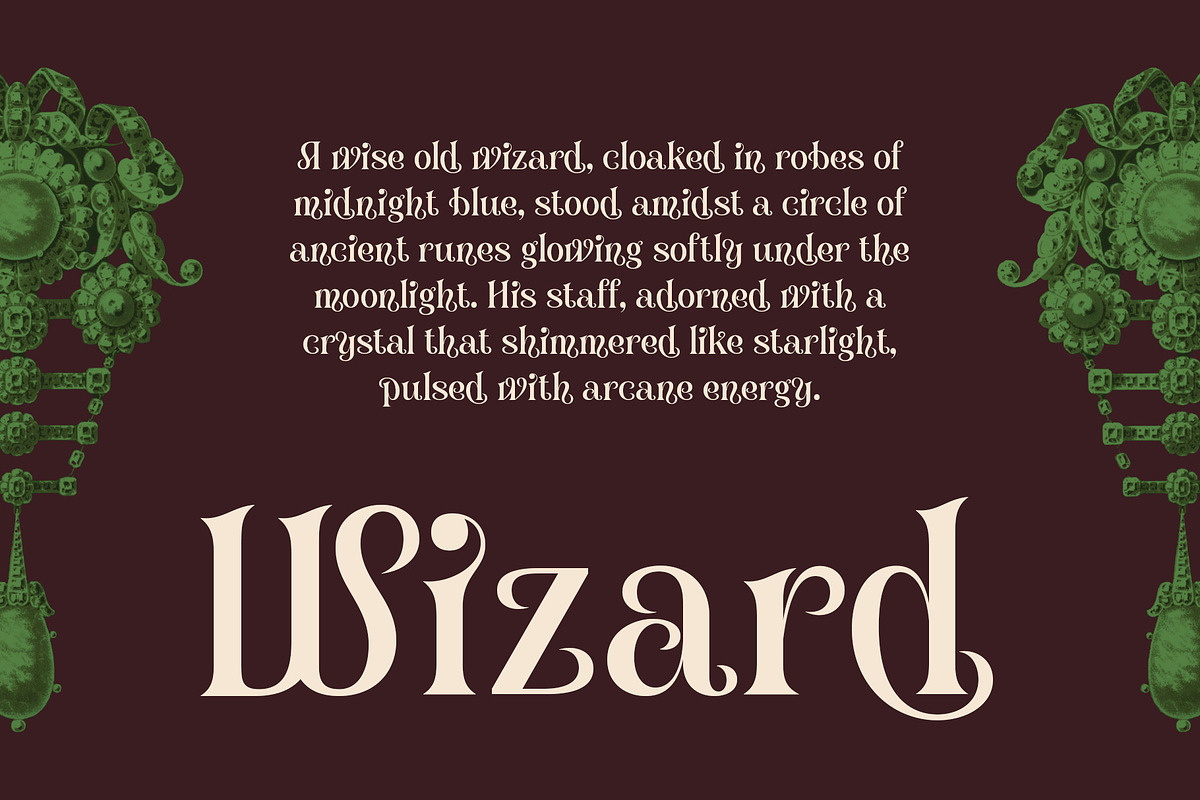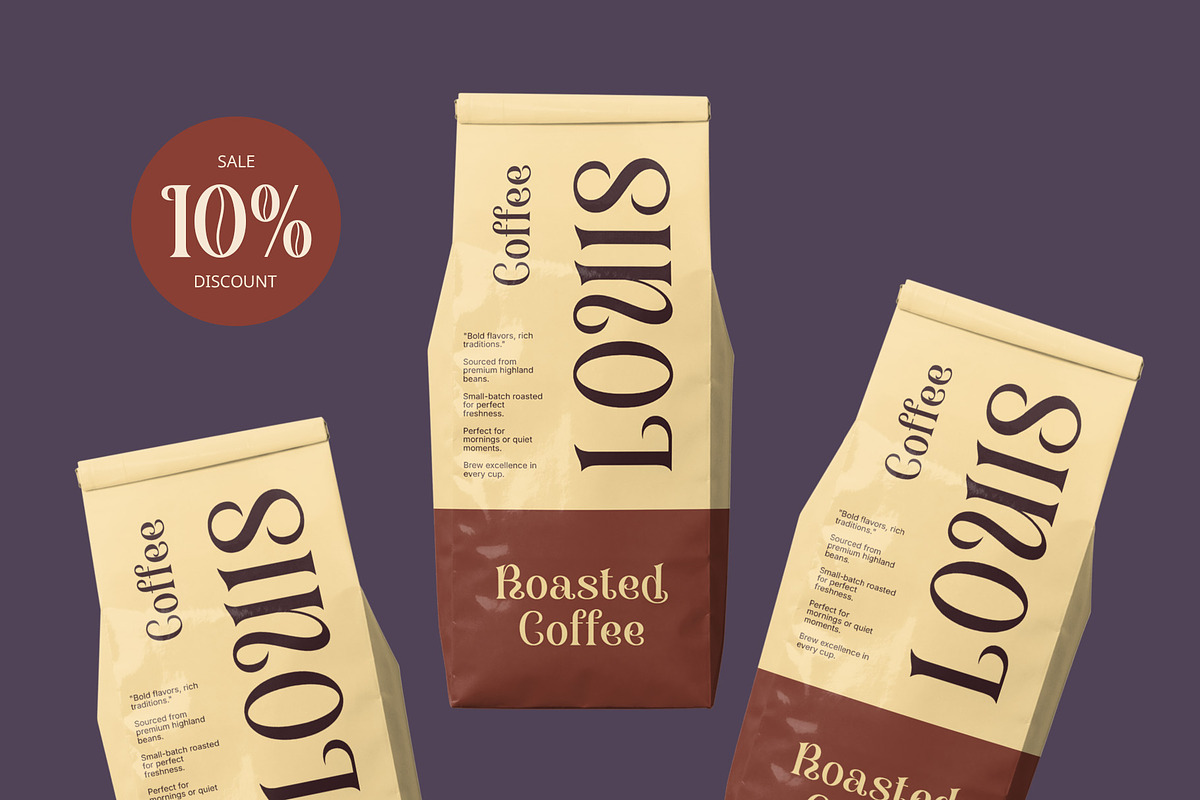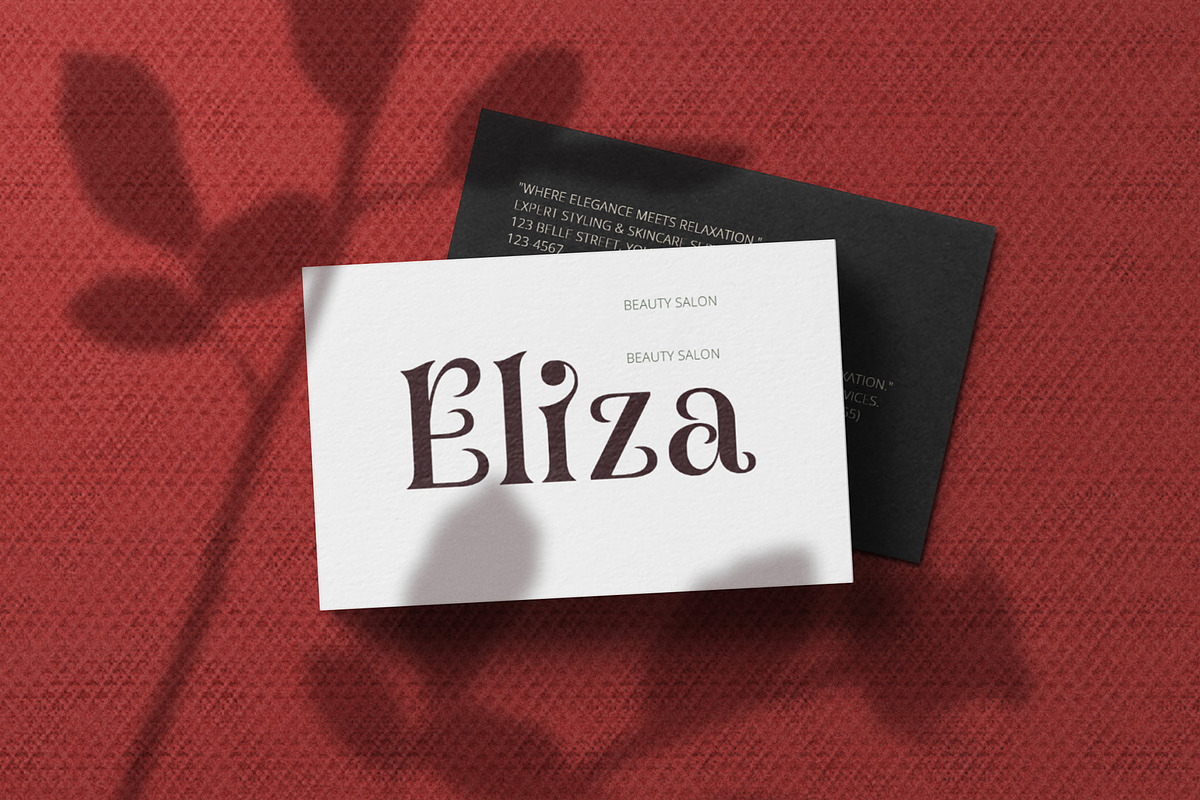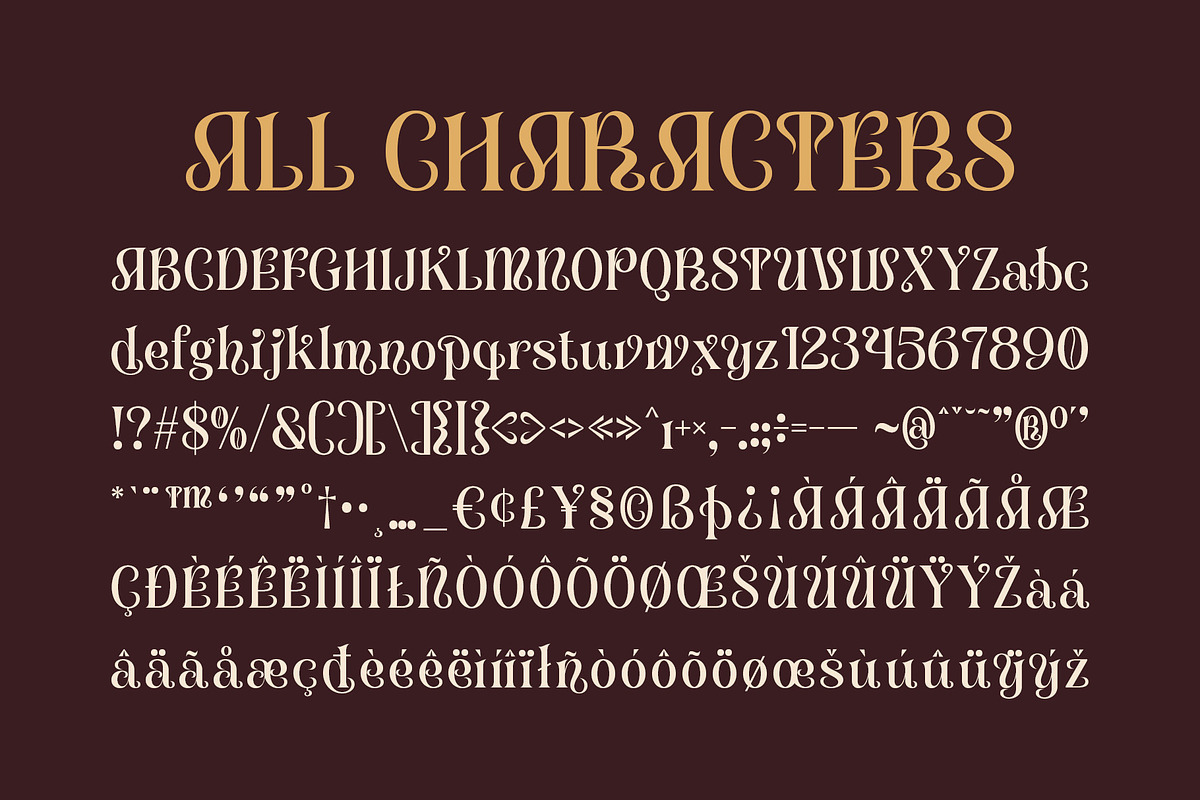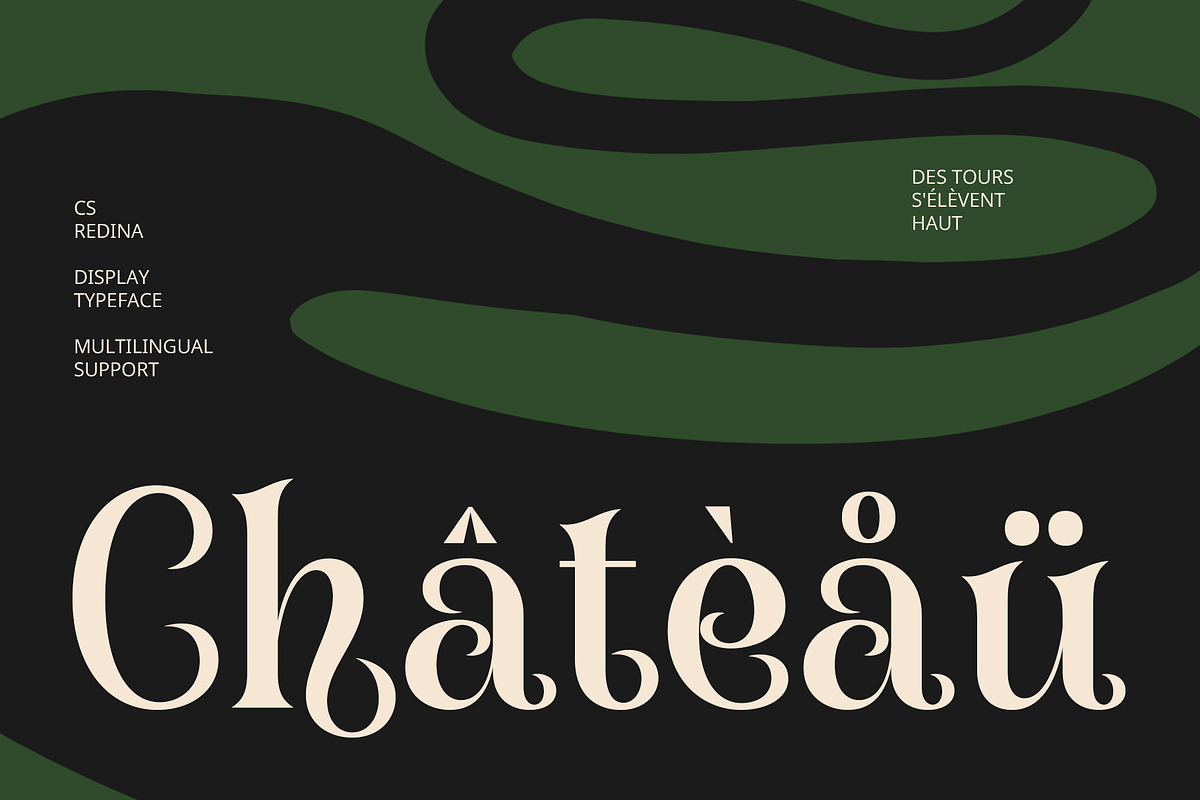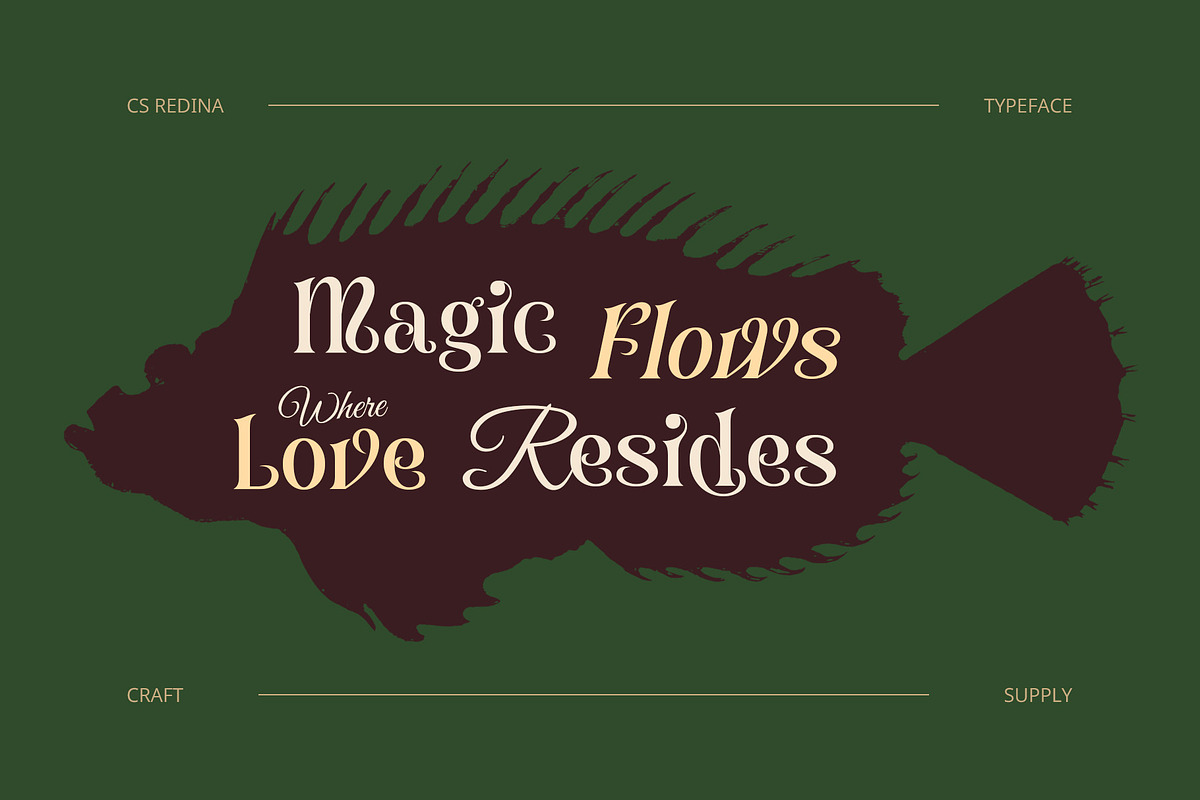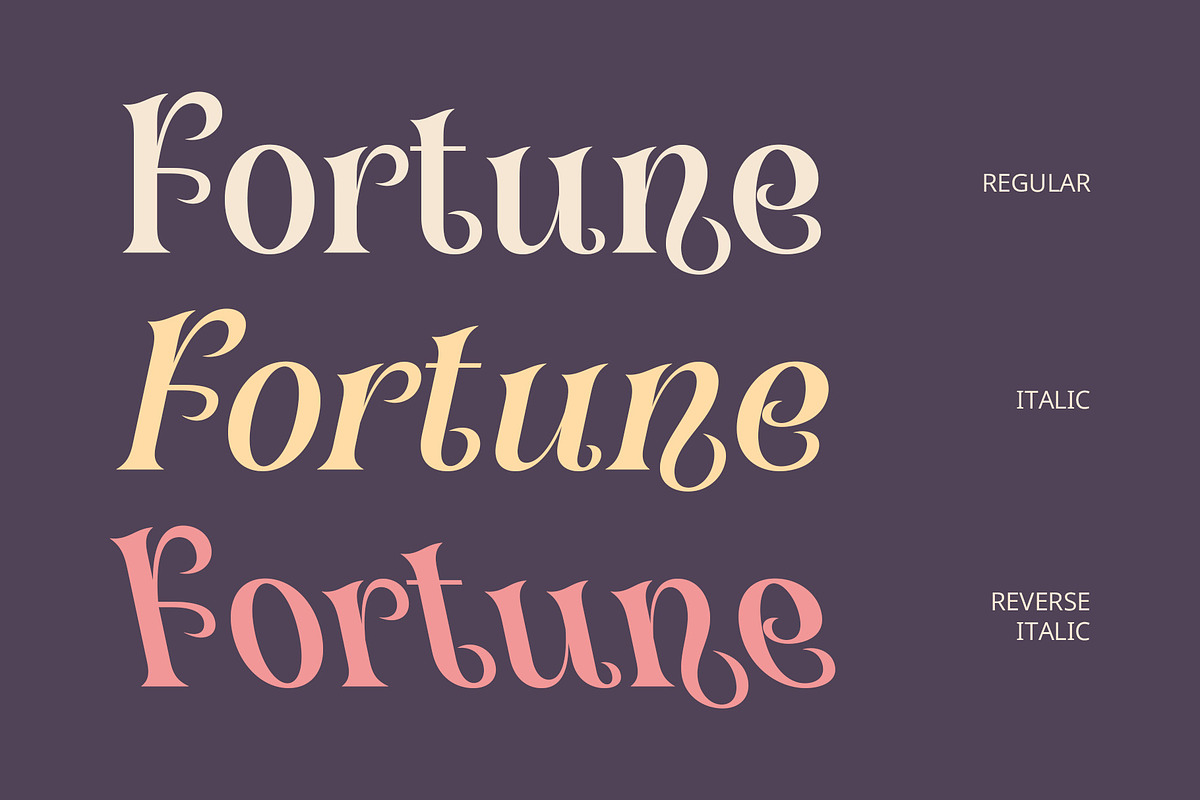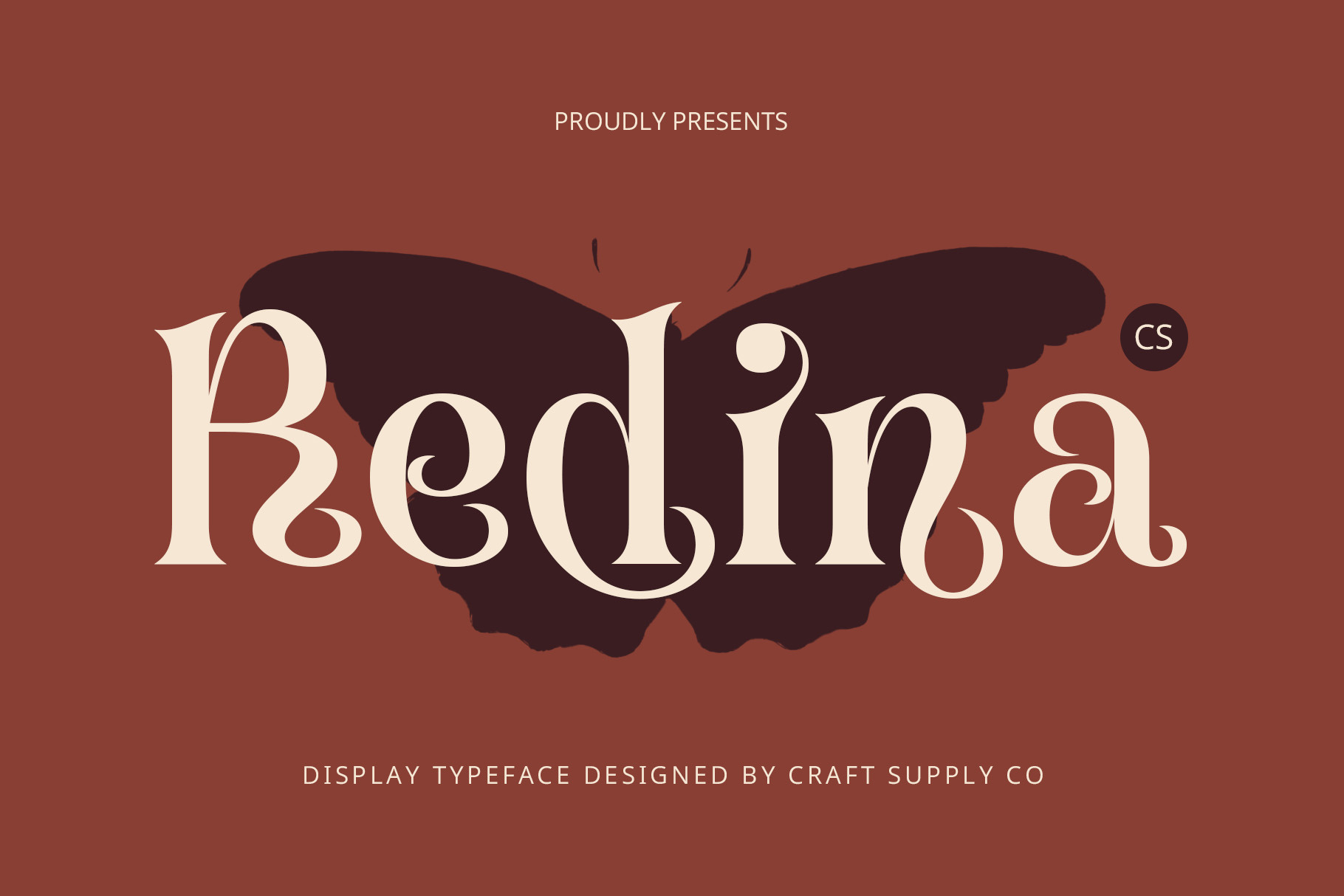
CS Redina – Fantasy Font
CS Redina – Fantasy-Inspired Display Font
Imaginative, Magical Design for Creative Projects CS Redina is a fantasy-inspired display font that captures the essence of imagination and magic. With unconventional letterforms and enchanting details, it evokes a sense of wonder and otherworldliness. The font features dramatic curves, ornamental elements, and shapes influenced by fairy tales and mystical worlds, making it perfect for designs that need to spark creativity and fantasy.
Whimsical Elements with Enchanting Appeal The unique characteristics of CS Redina bring an element of fantasy to life, with letters appearing to be made from magical materials such as stones, leaves, or fire. This natural and mythical aesthetic creates a captivating atmosphere, making it ideal for projects that need to transport audiences into an imaginative world. The font’s additional effects, such as sparkles or shadows, enhance its magical presence and elevate the sense of mystique.
Perfect for Fantasy-Themed Designs Whether for fantasy movie posters, adventure book covers, or magical-themed games, CS Redina is the perfect choice for projects that aim to captivate and inspire. Its striking and expressive design draws attention and invites curiosity, creating a powerful visual statement. The font brings together a sense of adventure and magic, ensuring that your design stands out with a unique and fantastical style.
- CS Redina Regular
- CS Redina Italic
- CS Redina Reverse Italic